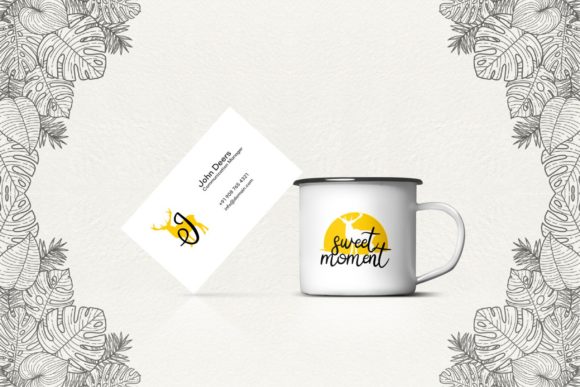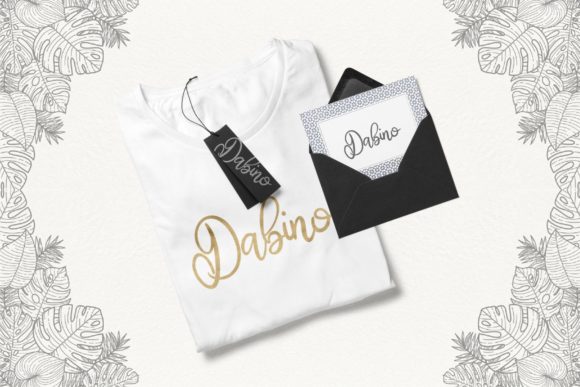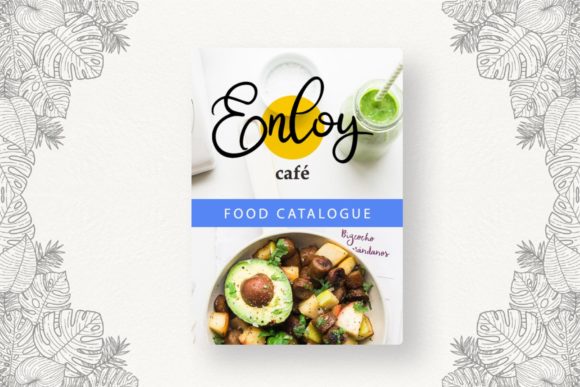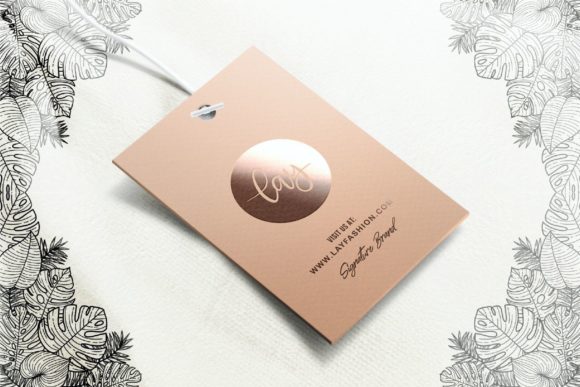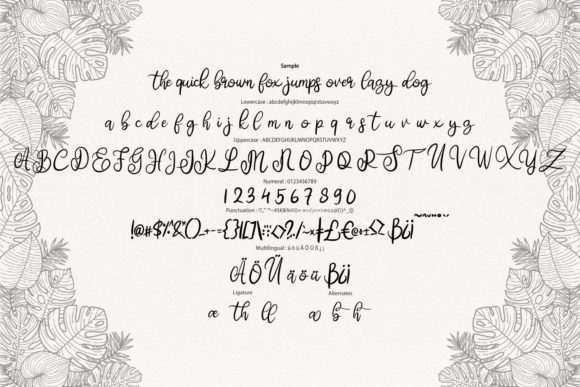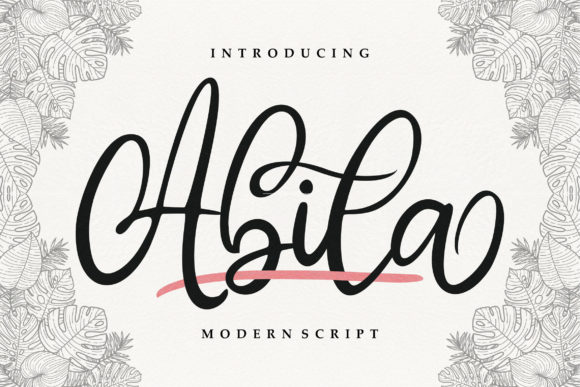
Introducing Abila Font: Elevate Your Designs with Elegance and Flair
Are you on the hunt for a font that exudes sophistication, elegance, and a touch of whimsy? Look no further than Abila Font, a delicate and flowing handwritten font that’s sure to breathe life into your creative projects. With its beautiful, well-balanced characters, Abila Font is an incredibly versatile addition to any designer’s toolkit.
The Characteristics of Abila Font
Abila Font boasts a range of characteristics that make it an attractive choice for designers and crafters alike. Its delicate, elegant lines and flowing script make it perfect for projects that require a touch of sophistication and refinement. The font’s well-balanced characters ensure that it remains clear and legible, even at smaller sizes, making it ideal for use in a wide range of applications, from digital media to print materials.
Why Choose Abila Font?
So, what sets Abila Font apart from other fonts on the market? Here are just a few reasons why designers and crafters are falling in love with this beautiful font:
- Elegance and sophistication: Abila Font’s delicate lines and flowing script make it perfect for projects that require a touch of elegance and refinement.
- Versatility: With its well-balanced characters and clear, legible design, Abila Font is suitable for use in a wide range of applications, from digital media to print materials.
- Creativity unleashed: Abila Font is the perfect addition to your creative projects, allowing you to bring your ideas to life in a unique and captivating way.
How to Use Abila Font in Your Designs
Abila Font is incredibly easy to use and can be incorporated into a wide range of design projects. Here are a few ideas to get you started:
- Digital media: Use Abila Font in your social media graphics, blog posts, and website designs to add a touch of elegance and sophistication.
- Print materials: Abila Font is perfect for use in print materials such as brochures, flyers, and business cards.
- Crafting projects: Add a personal touch to your crafting projects, such as handmade cards, scrapbooking, and journaling, with Abila Font.
Tips for Getting the Most Out of Abila Font
To get the most out of Abila Font, here are a few tips to keep in mind:
- Experiment with different sizes: Abila Font is clear and legible at a range of sizes, so don’t be afraid to experiment with different sizes to find the one that works best for your project.
- Pair it with other fonts: Abila Font pairs beautifully with other fonts, so try combining it with a bold font for headings or a sans-serif font for body text.
- Use it consistently: To create a cohesive look, use Abila Font consistently throughout your design.
Abila Font is a beautiful, elegant, and flowing handwritten font that’s sure to elevate your designs and bring your creative ideas to life. With its well-balanced characters, clear design, and versatility, Abila Font is an excellent addition to any designer’s toolkit. Whether you’re working on digital media, print materials, or crafting projects, Abila Font is the perfect choice for anyone looking to add a touch of sophistication and elegance to their designs.
Get Creative with Abila Font